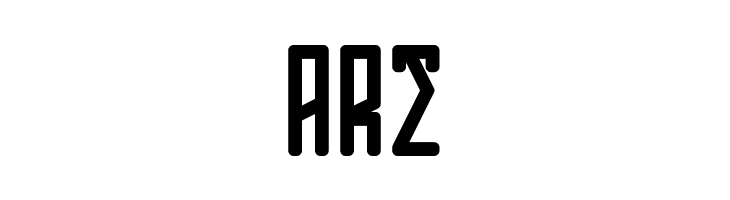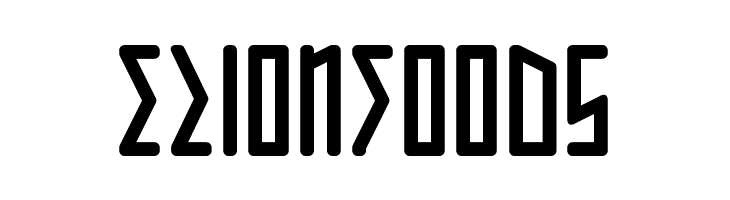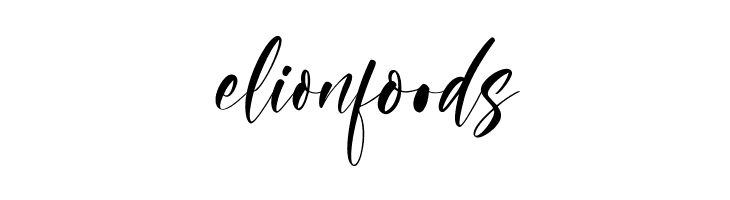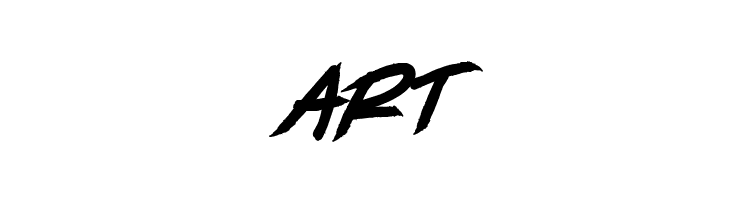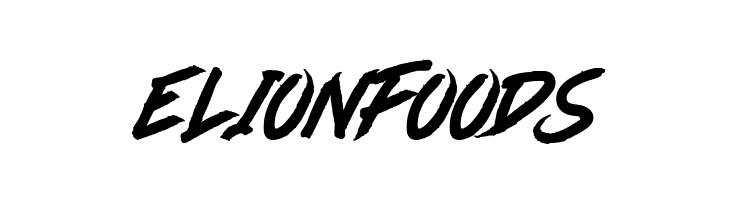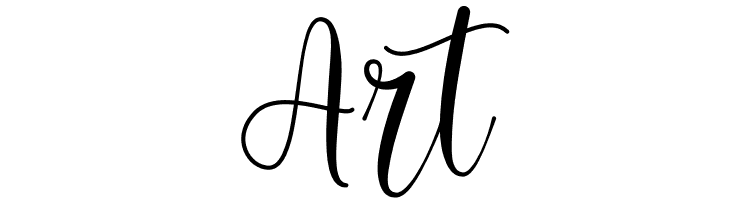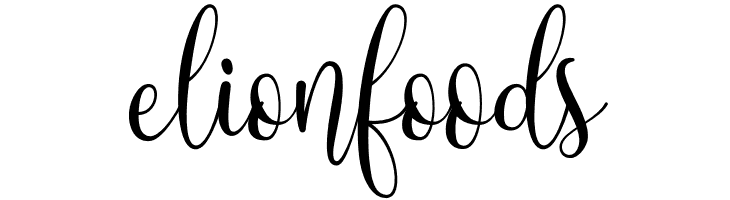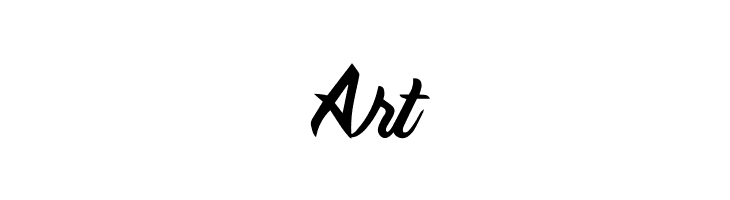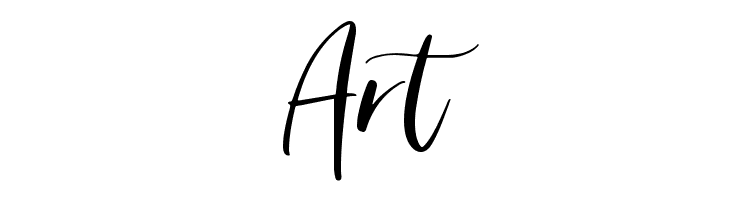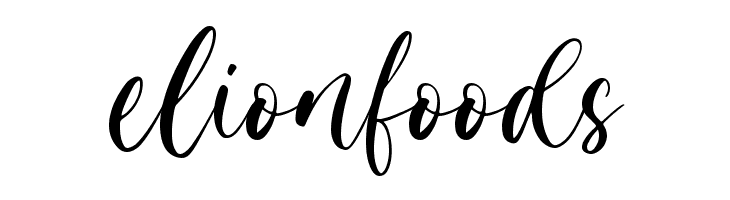
A bold, dynamic font with playful, brush-like patterns.
A bold, expressive script font with flowing, cursive letterforms.
A bold, expressive handwritten font with a modern and dynamic style.
A modern, elegant script font with a handwritten style and dynamic strokes.
A dynamic and flowing script font with elegant cursive letterforms.
A bold, geometric font with a futuristic and digital aesthetic.
A casual and elegant handwritten font with smooth, flowing lines.
A bold, geometric font with sharp angles and modern design.
A bold, angular serif font with a gothic influence and high contrast.
A bold, geometric font with a futuristic and angular design.
A dynamic and energetic script font with fluid, sweeping strokes and a modern calligraphic style.
A bold, handwritten script font with dynamic and fluid strokes.
A bold, flowing script font with elegant curves and a handwritten style.
A bold, energetic, hand-drawn font with brush-like strokes and a lively appearance.
A bold, thorn-like decorative font with a chaotic, edgy style.
A bold, sans-serif font with a strong, modern presence.
A bold, playful font with rounded, bubble-like characters.
Handwritten sans-serif characters inside playful circles.
A decorative, heart-themed monogram font with playful circular frames.
A playful, bubble-themed decorative font with intricate circular patterns.
Decorative bubble font with leaf embellishments and rounded, handwritten characters.
A playful, rounded font with a whimsical, childlike style.
A playful, bold font with rounded, bubbly characters.
A playful, hollow, bubble-like font with a whimsical and creative style.
A playful, bold font with a bubble-like design and dotted pattern, ideal for fun projects.
A bold, playful font with rounded, bubbly characters.
A modern, geometric font with thin lines and rounded edges.
A modern-vintage blend with elegant curves and distinct letterforms.
A playful, wavy font with zigzag lines creating a dynamic and decorative style.
A rugged, distressed font with a vintage, typewriter-like appearance.
A bold, textured serif font with a vintage yet modern appeal.
A bold, geometric font with sharp angles and a futuristic style.
A bold, playful serif font with thick, rounded serifs and strong character presence.
An elegant, flowing script font with intricate loops and modern flair.
A dynamic, cursive handwritten font with fluid strokes and a slanted style.